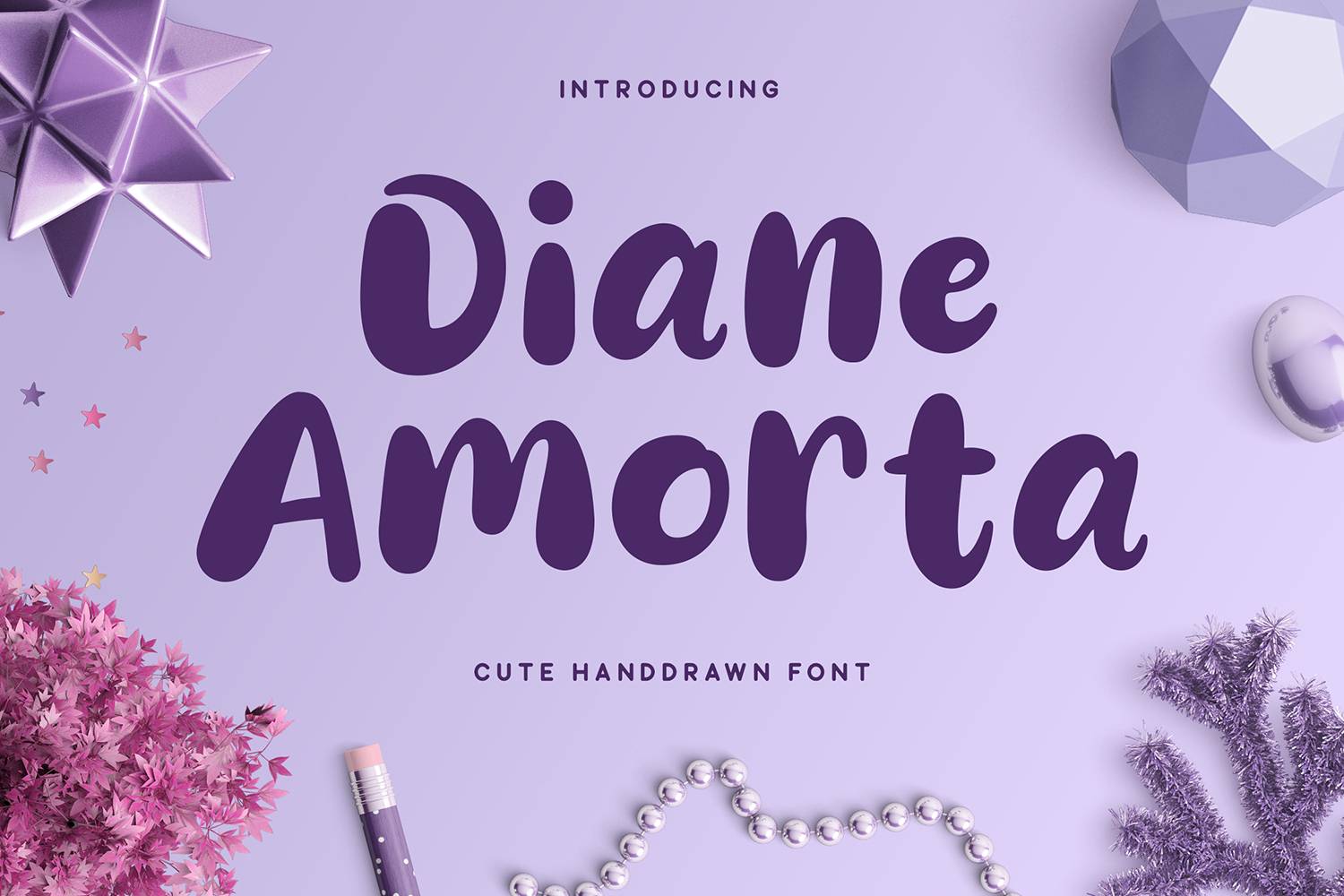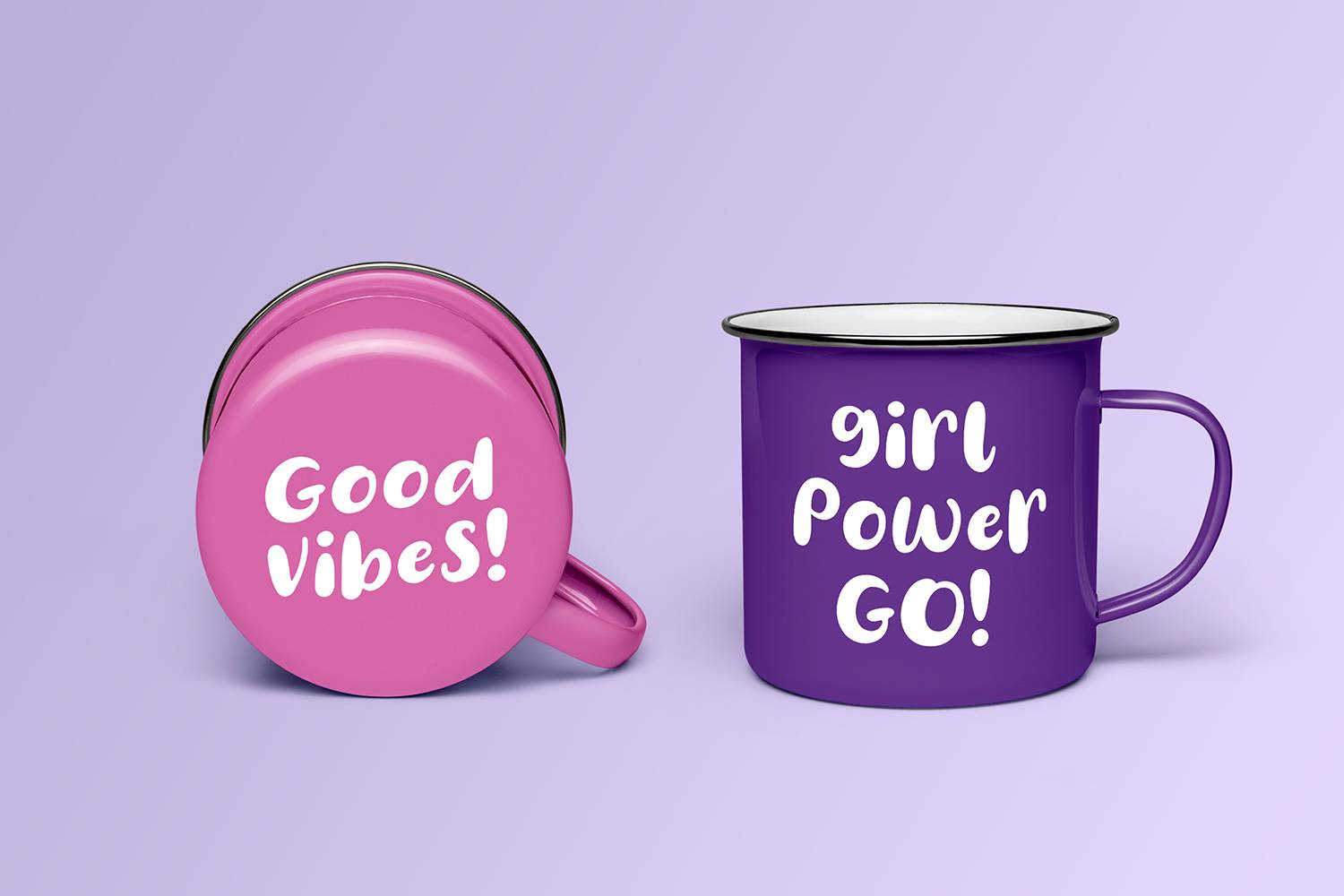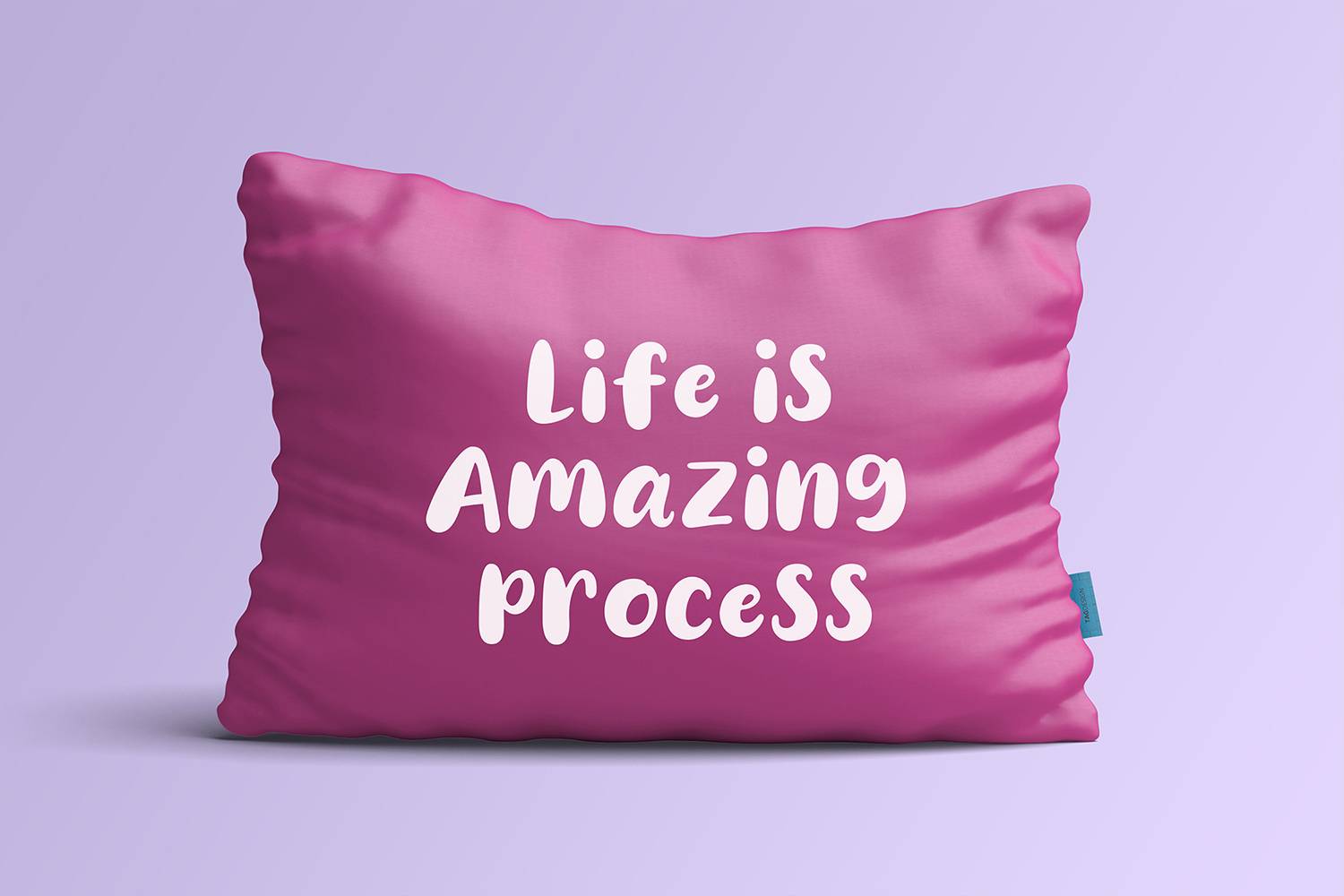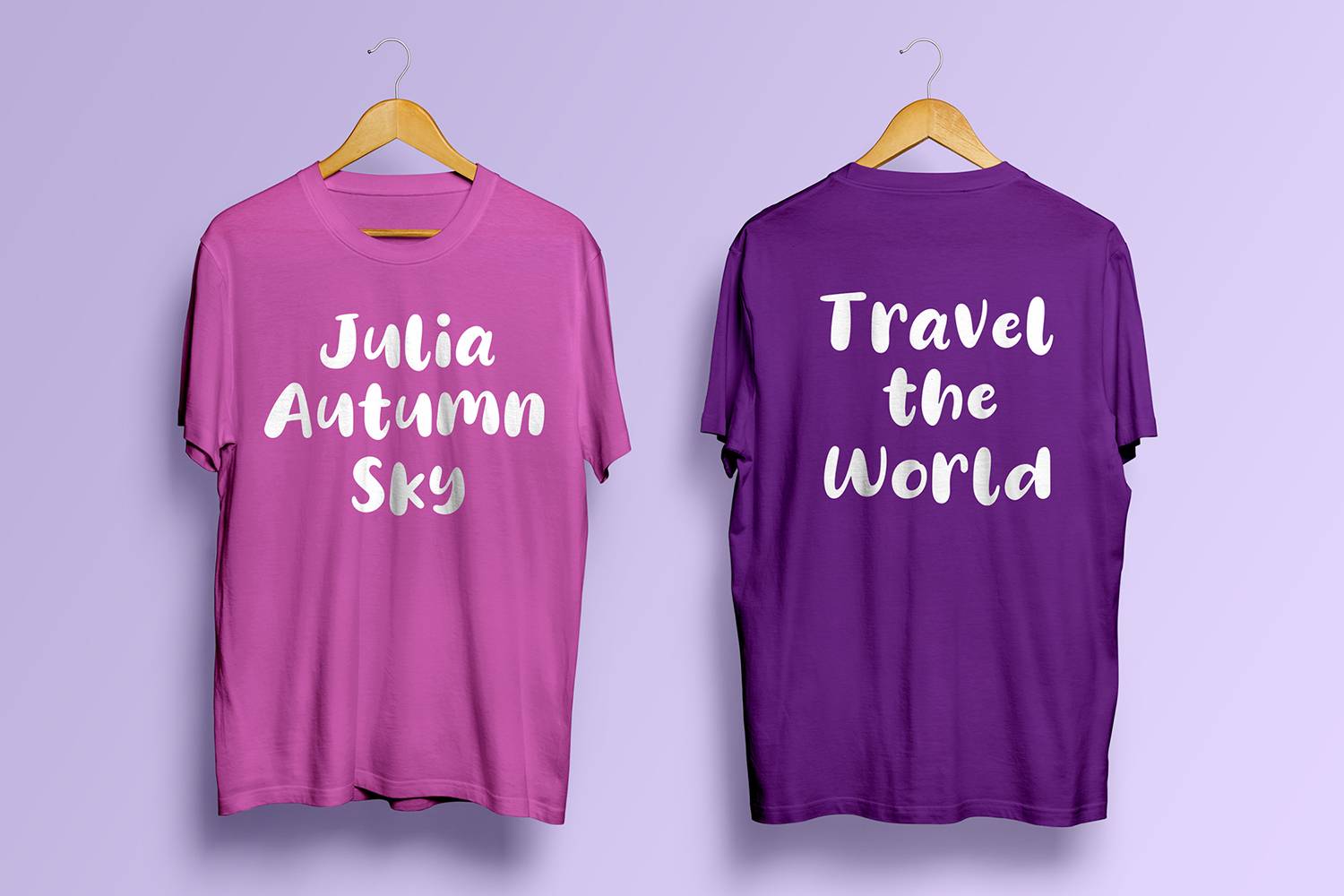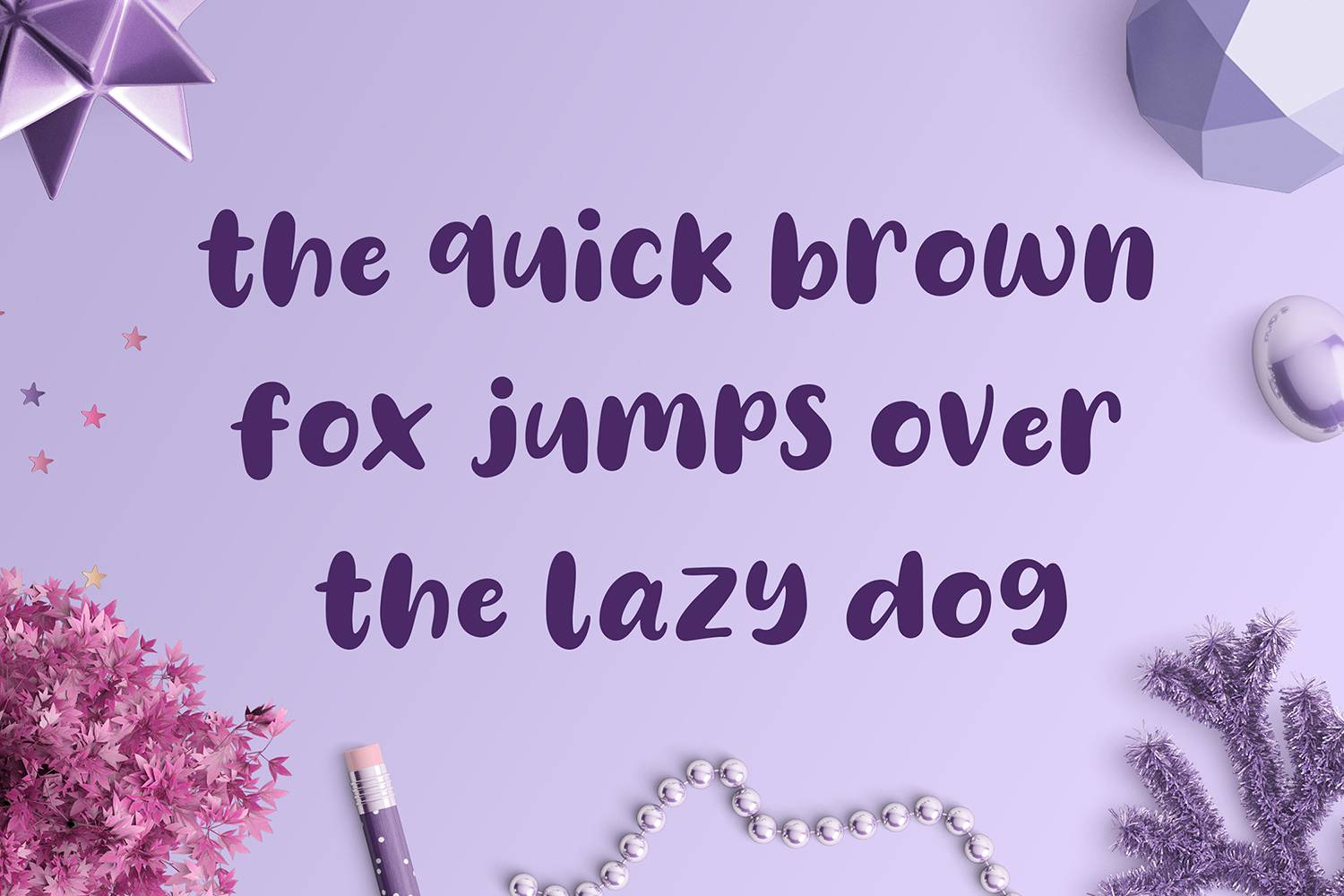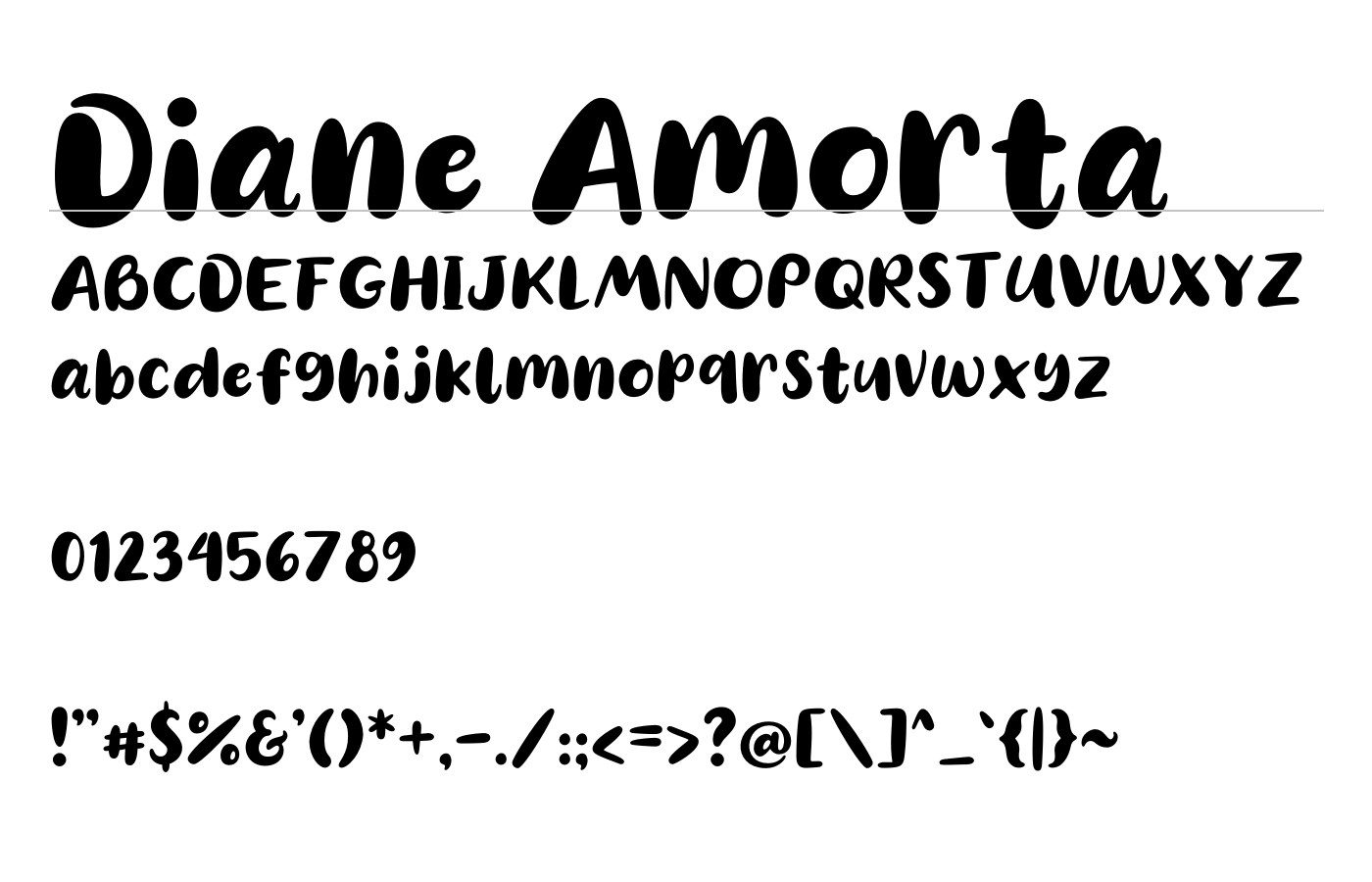
Diane Amorta is a bold, playful handwritten script font with rounded, organic shapes and medium contrast strokes, giving it a friendly and approachable personality. Its lively letterforms and slightly irregular style make it perfect for creative projects, casual branding, and designs that want to convey warmth and energy. This font works well in logos, invitations, posters, and any design that benefits from a fun and informal touch.
Diane Amorta Font
About Diane Amorta Font
| Font family | Diane Amorta Font |
| Designer | Akhmad Reza Fauzi |